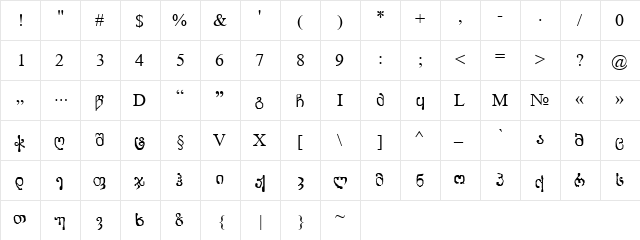
Lortkipanidze Normal
Design Context for Lortkipanidze Typeface
Lortkipanidze takes a measured approach to typography — its balanced proportions and neutral character make it a reliable workhorse for both digital and print work.